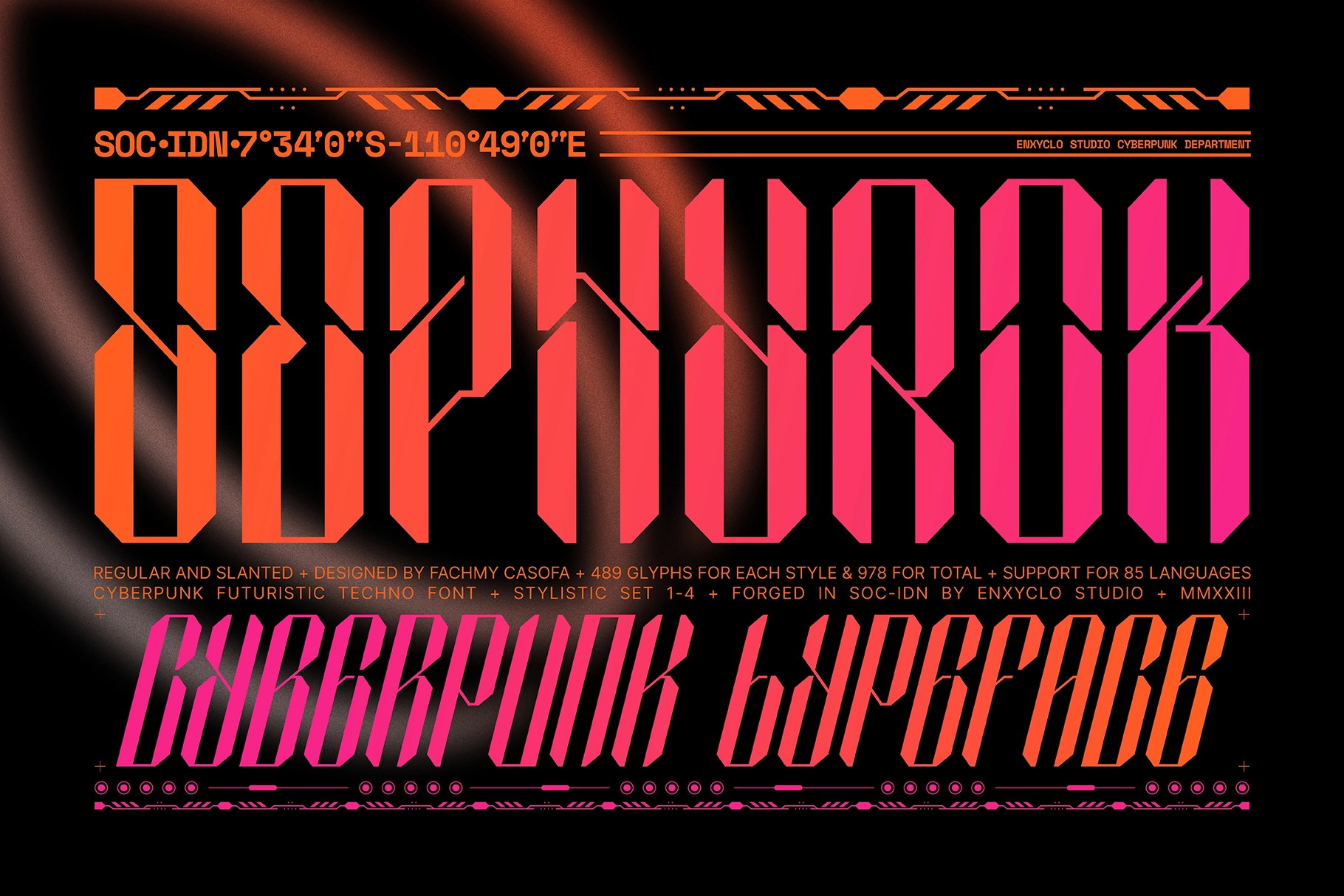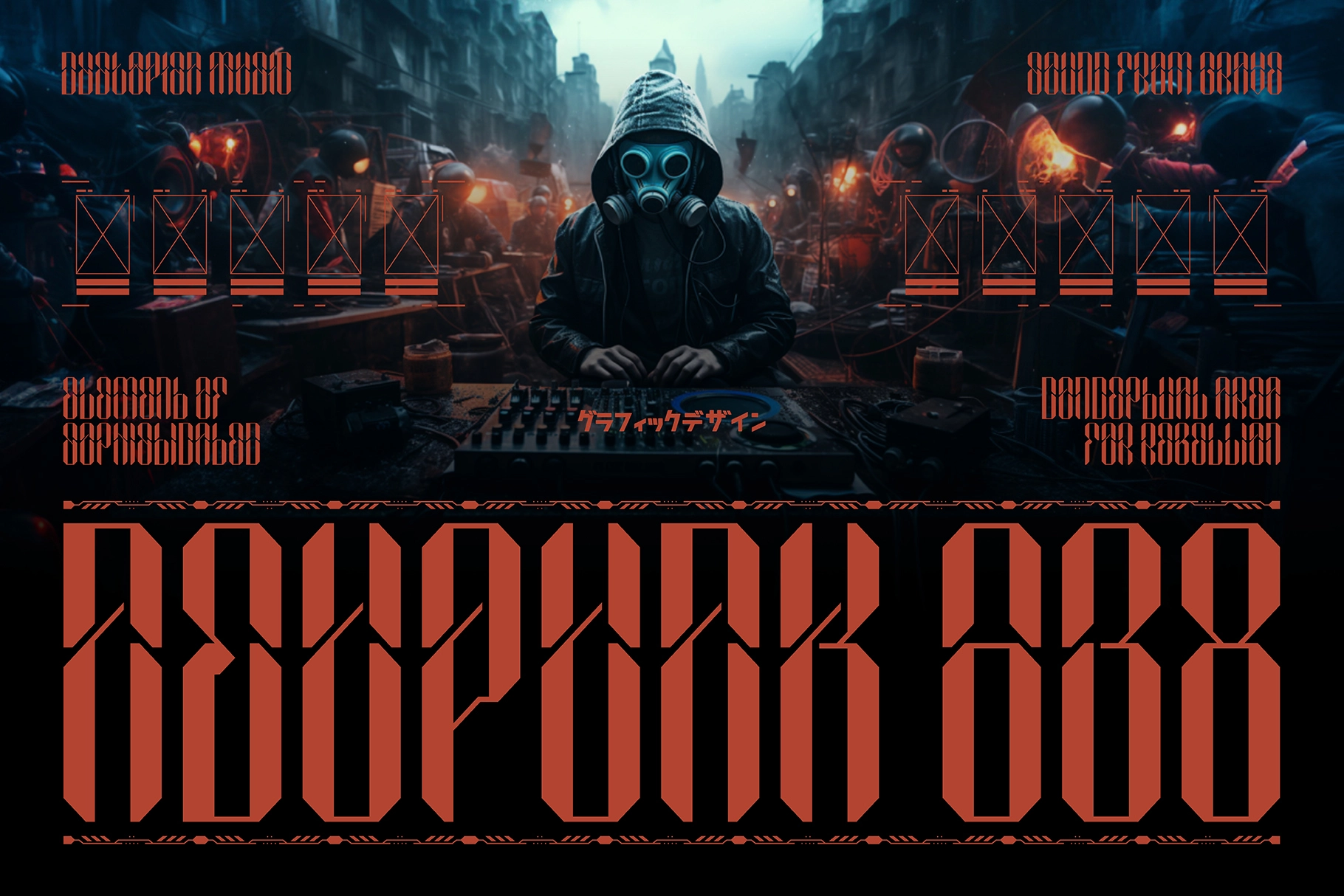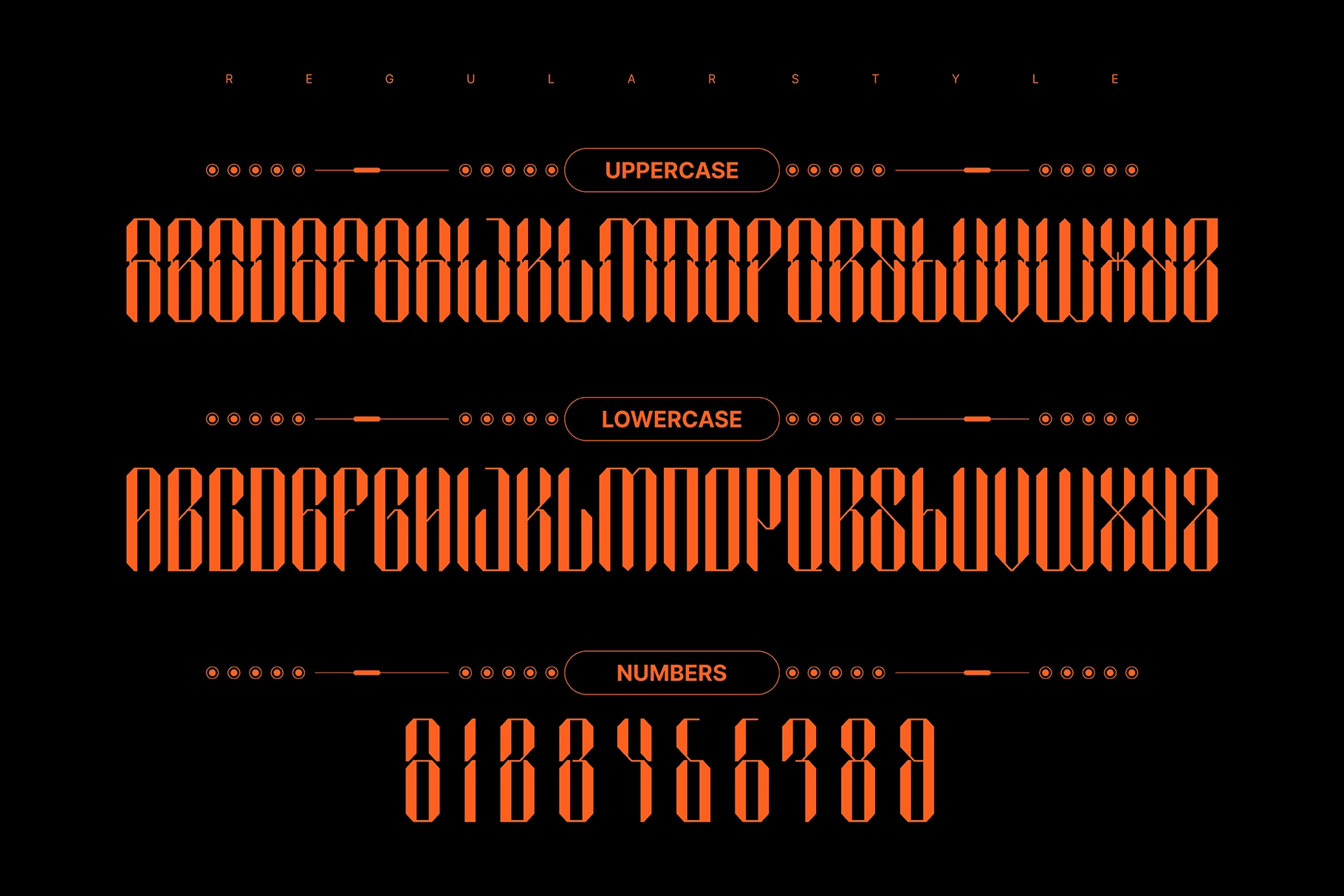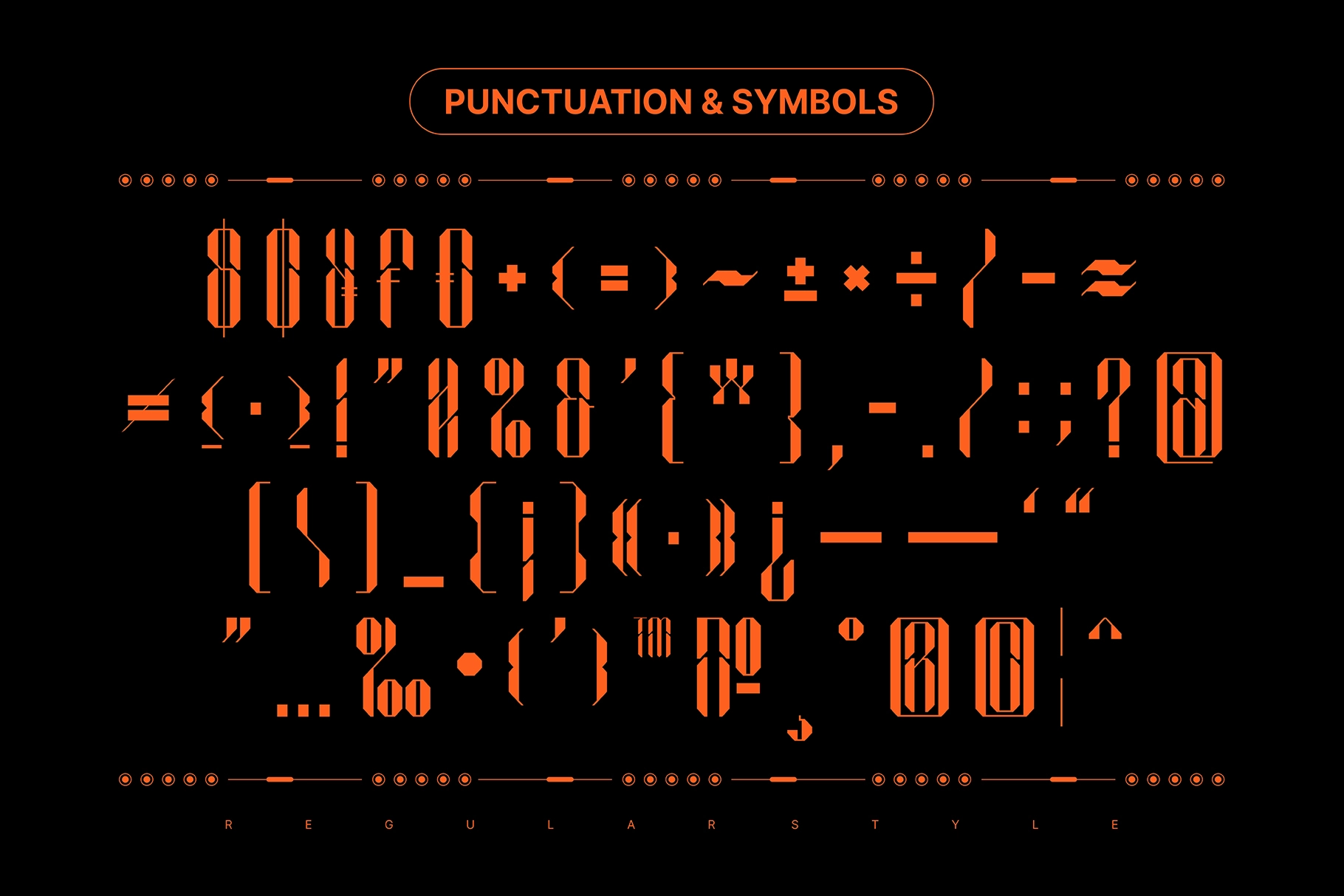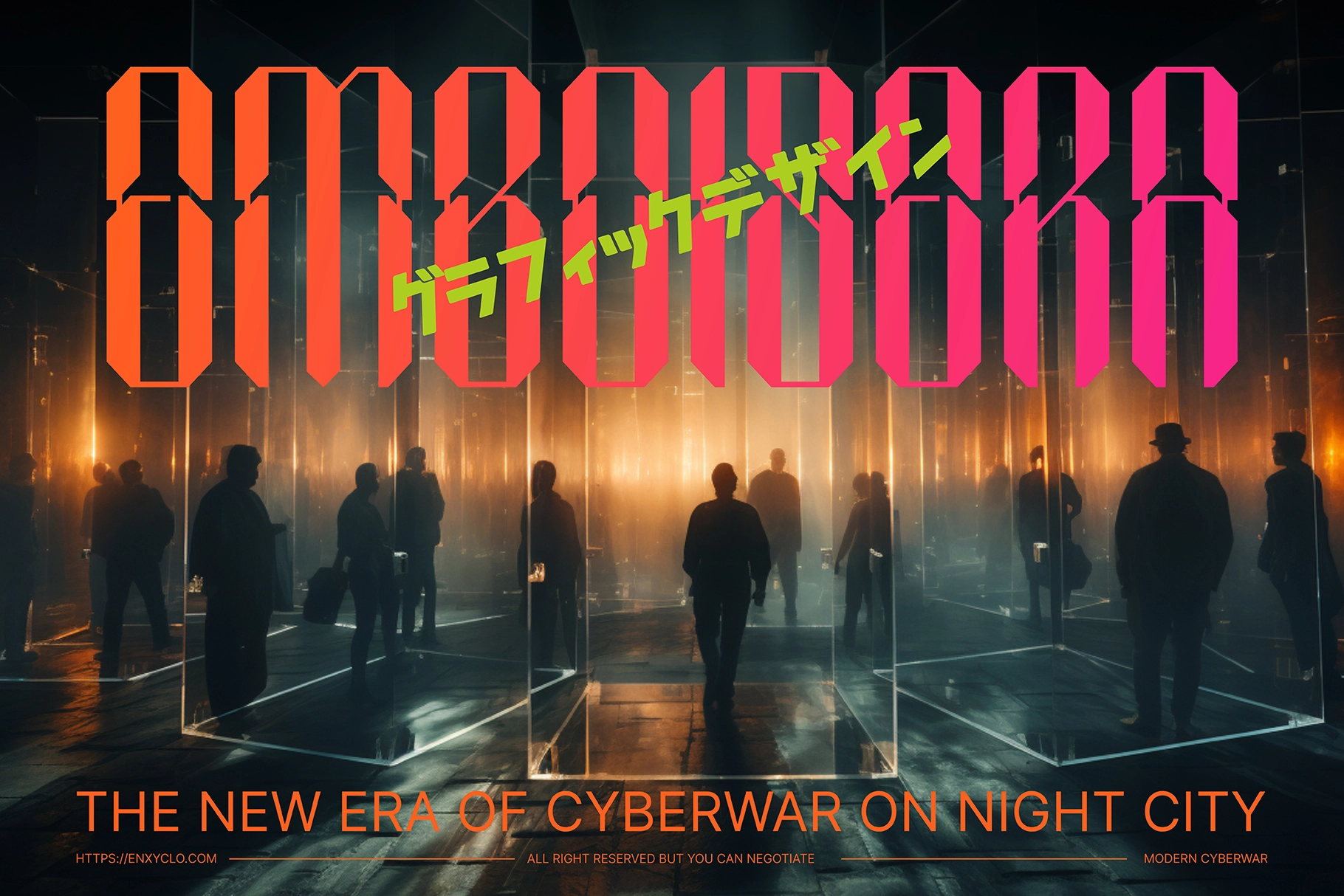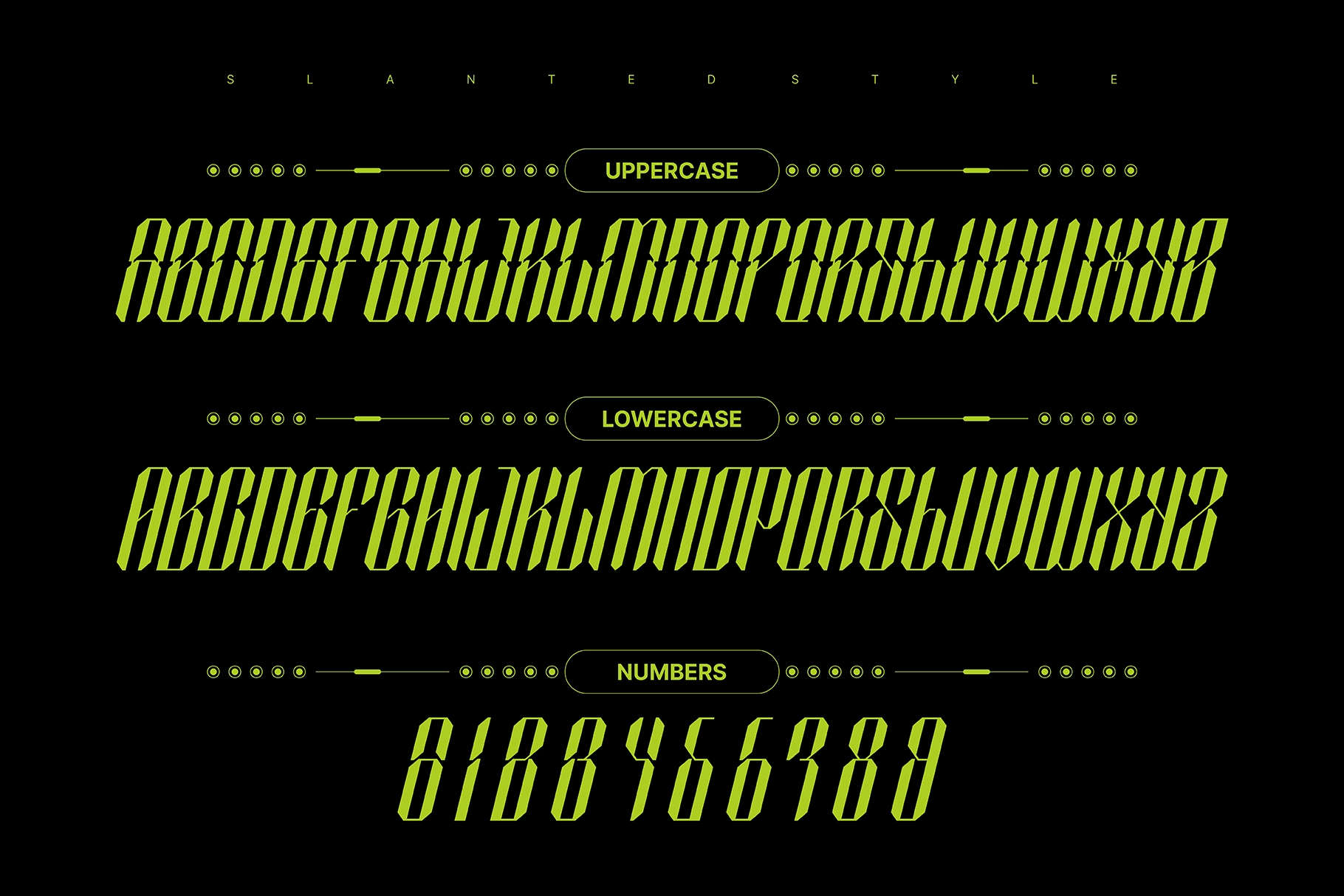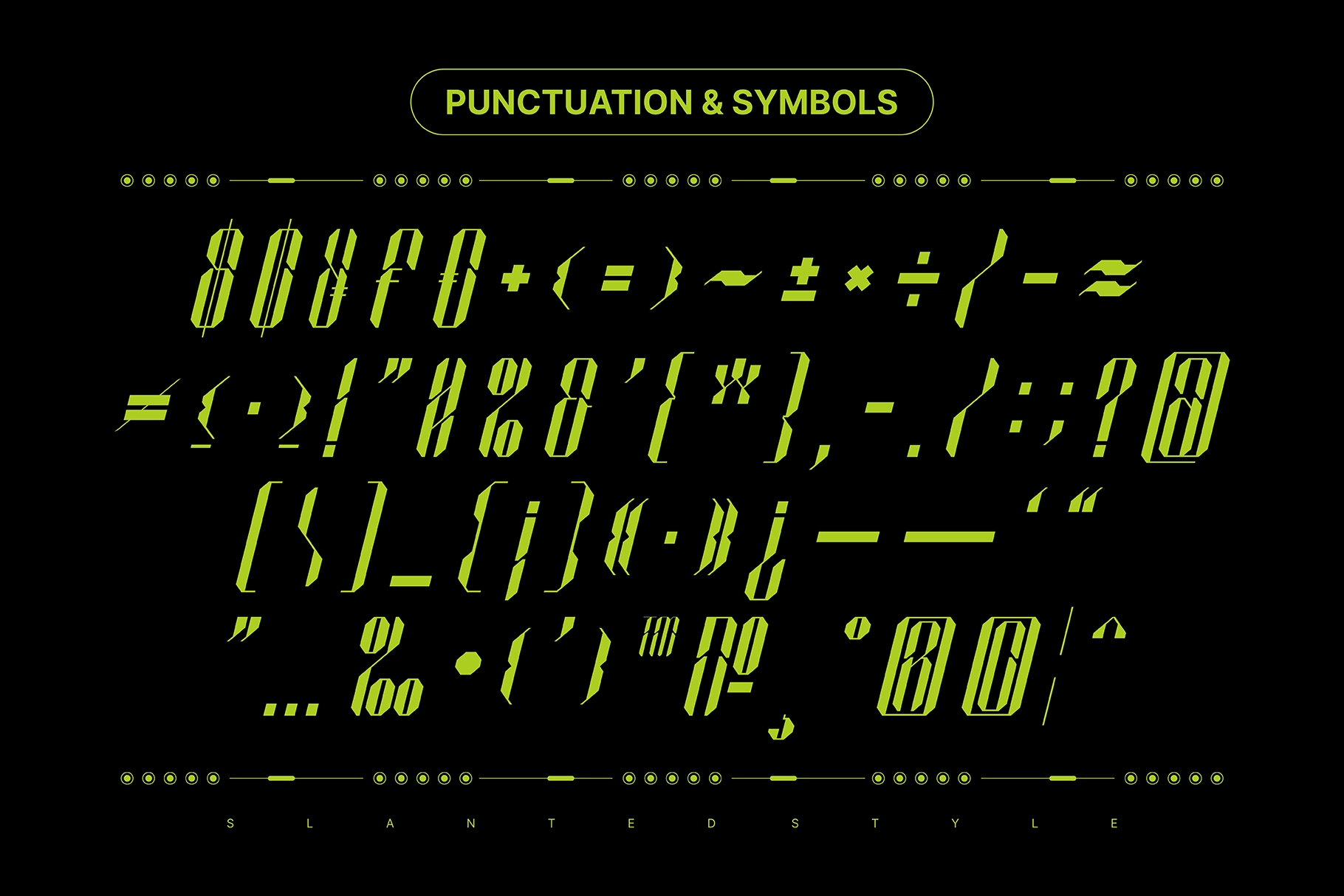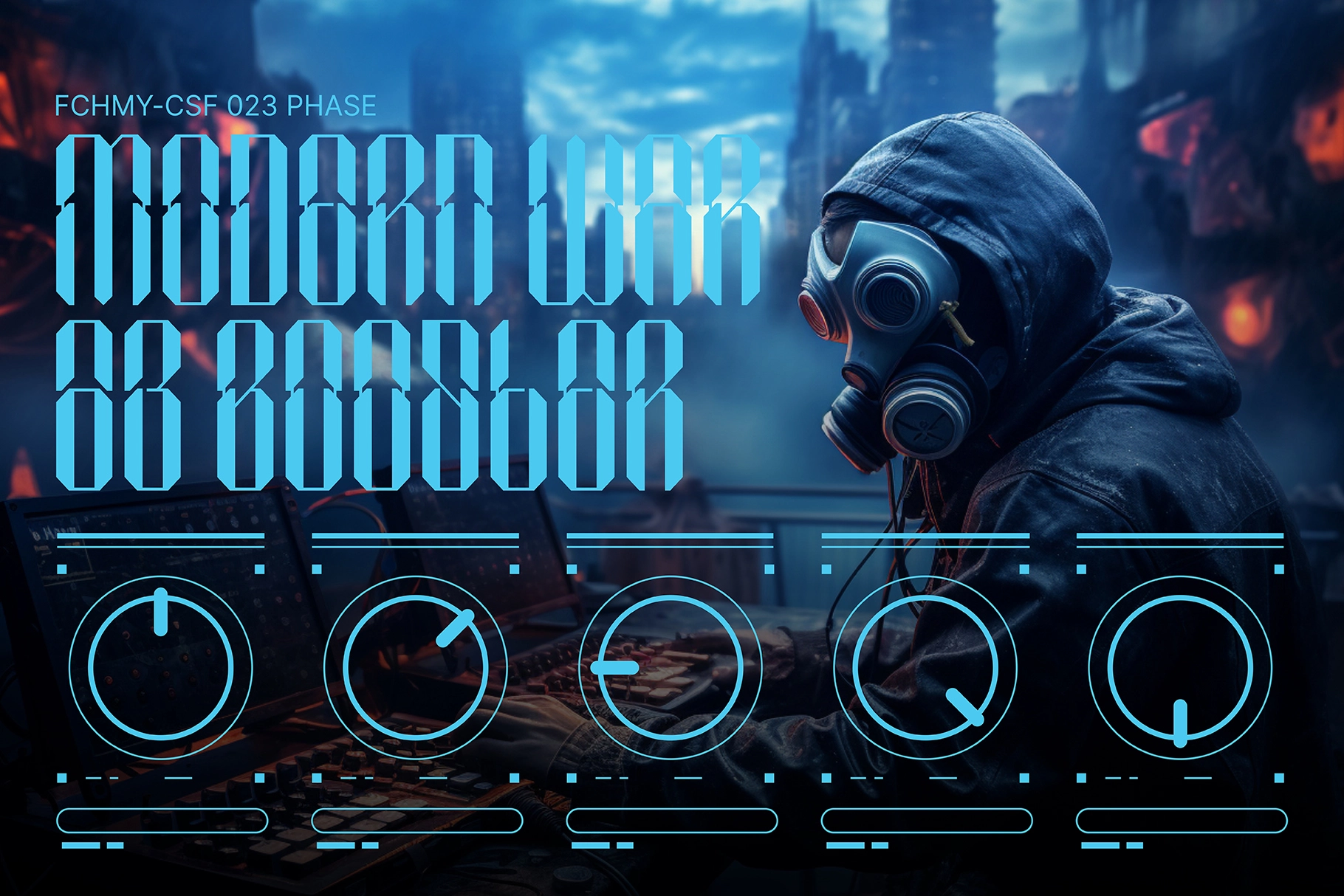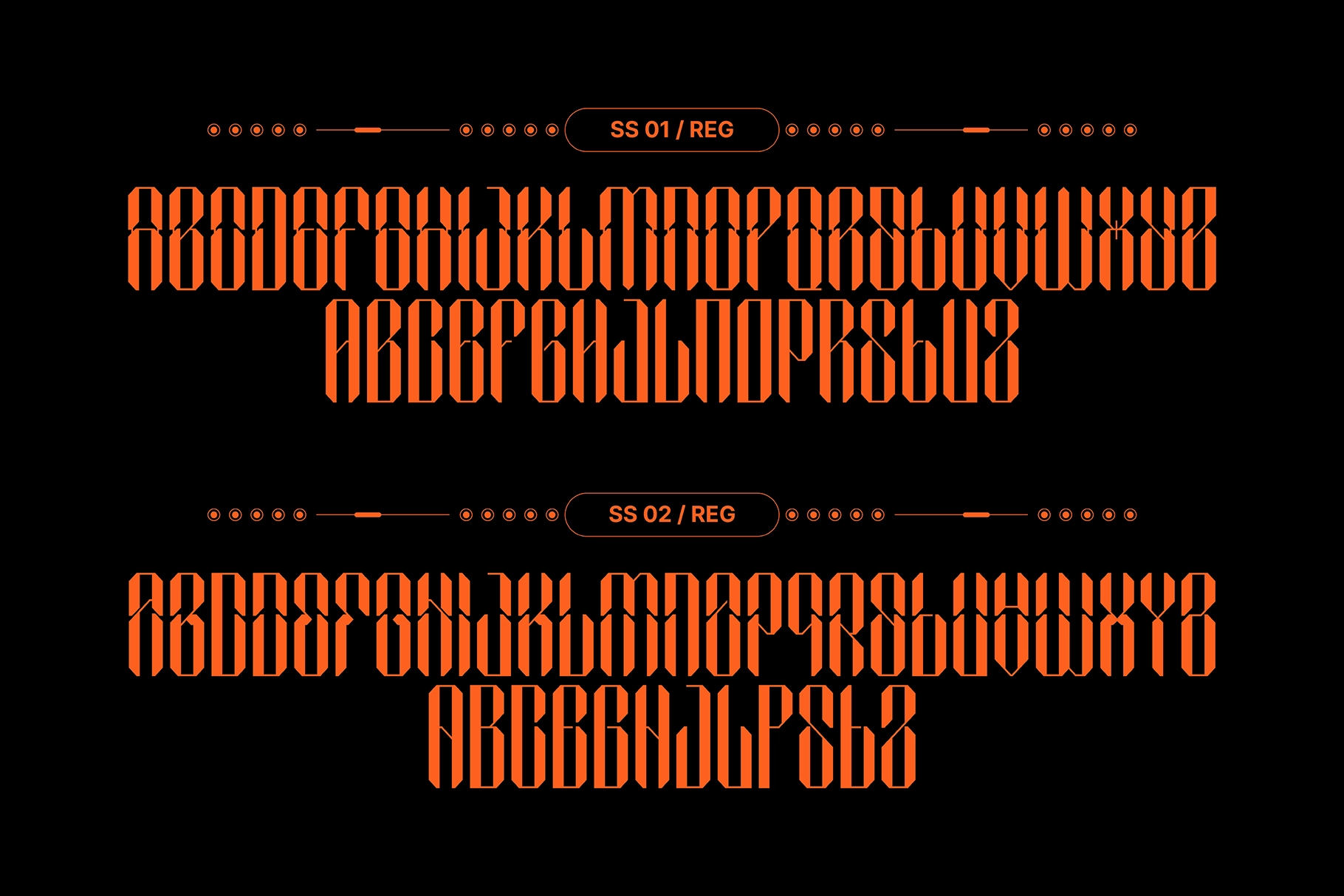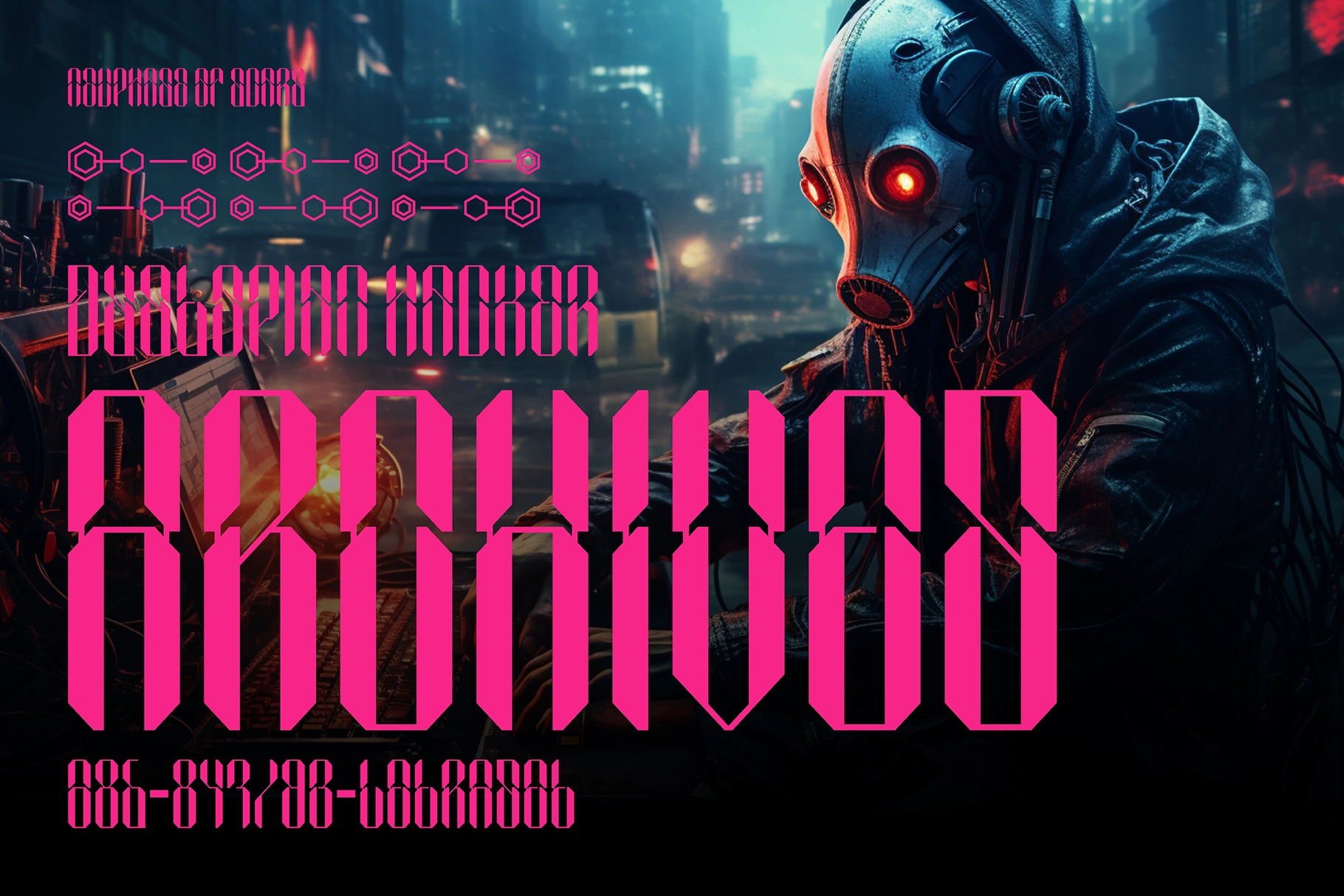
SEPHYROK - Cyberpunk Techno Display Font
SEPHYROK Cyberpunk Techno Display Font features tall, condensed letterforms with sharp vertical cuts and segmented strokes that create a rigid, mechanical rhythm. The previews show uppercase and lowercase sets, dense punctuation, and stylistic alternates, along with a slanted version that introduces forward motion suited for posters, gaming visuals, and sci-fi interfaces.